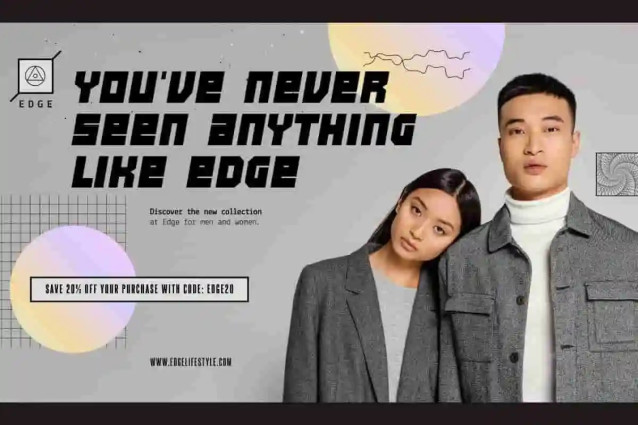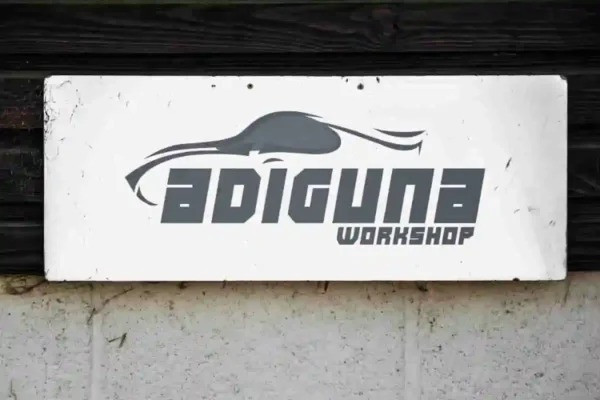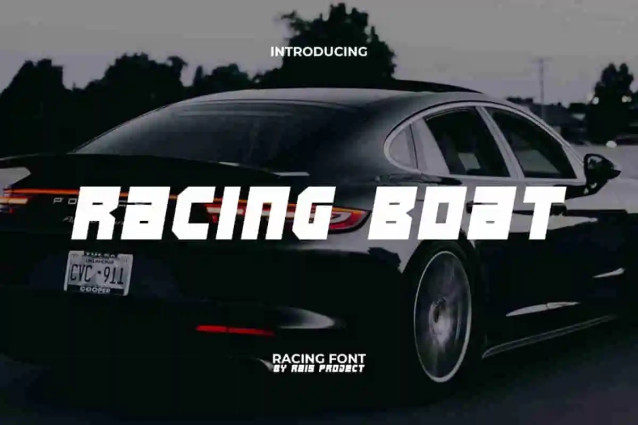
Racing Boat Font
Racing Boat Font is a bold and modern racing display font, by RaisProject. This font has a heavy and sharp shape so it can add coolness to every design you make. It will be good for label, poster, invitation, signage, cover, menu, custom design, brand image, product packaging, quotes, stationery, web, and more!
Introducing Racing Boat Display Font – a bold, fast, and dynamic typeface inspired by the energy of speed and competition. With sharp strokes, strong curves, and modern display styling, Racing Boat is built to bring motion, power, and excitement to every design. Perfect for sports branding, racing posters, gaming graphics, event promotions, and digital campaigns, this font ensures your projects stand out with unstoppable impact.
Racing Boat Display Font captures the thrill of motion and the strength of competition. Its bold letterforms make it an excellent choice for logos, advertising materials, product packaging, and social media content that demand high visibility. Whether you’re working on motorsports campaigns, esports visuals, or lifestyle branding, Racing Boat gives your work a fearless and modern edge.